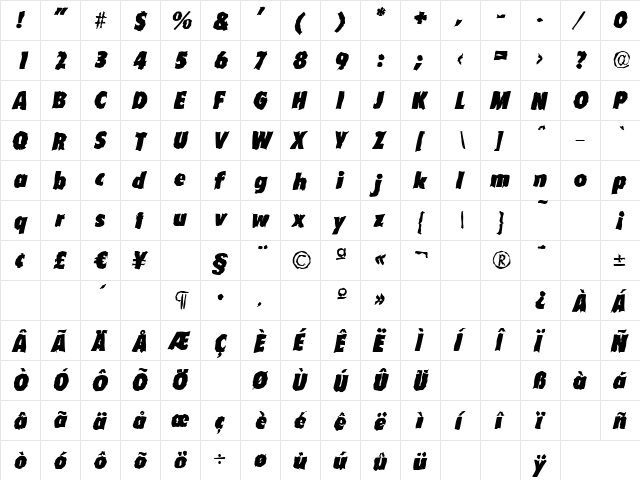
LuisBeckerRandom-Black Italic
Design Context for LuisBeckerRandom-Black Typeface
LuisBeckerRandom-Black takes a measured approach to typography — its balanced proportions and neutral character make it a reliable workhorse for both digital and print work. The slanted form adds forward momentum and visual energy.